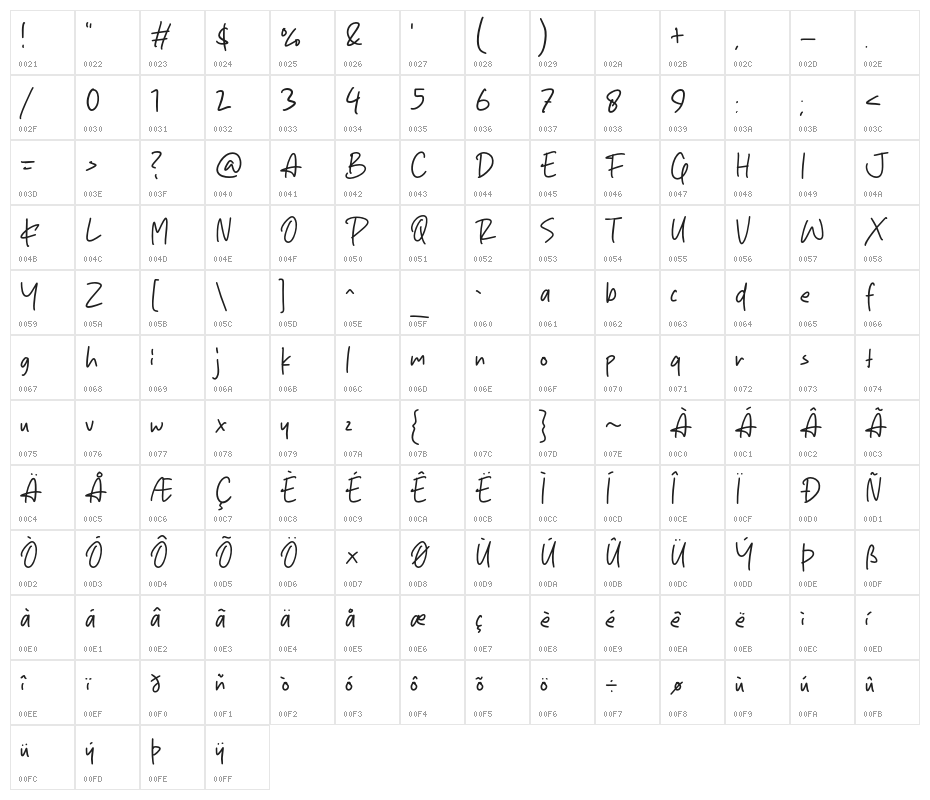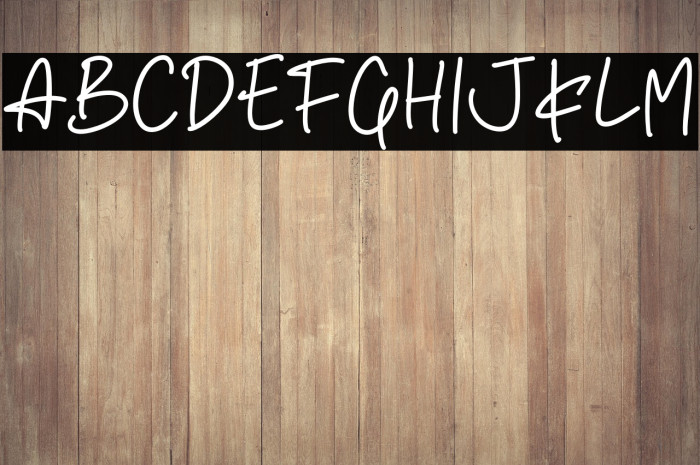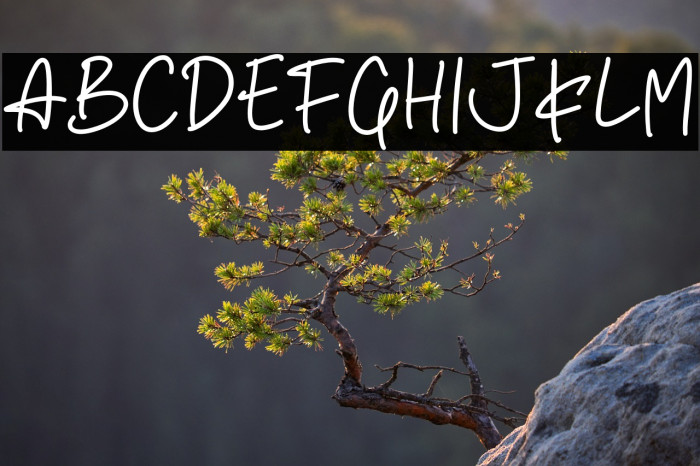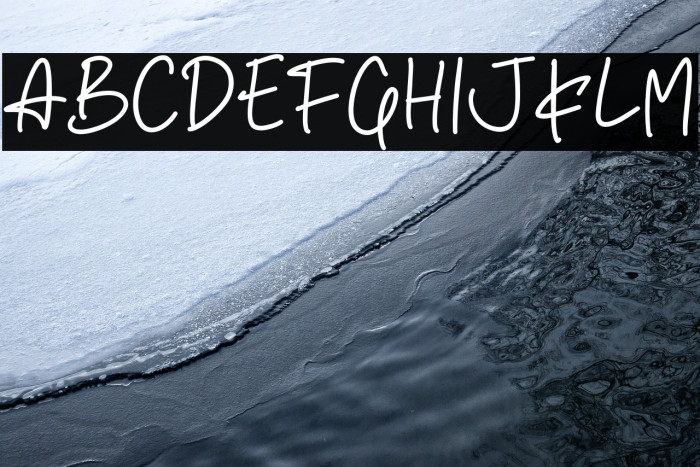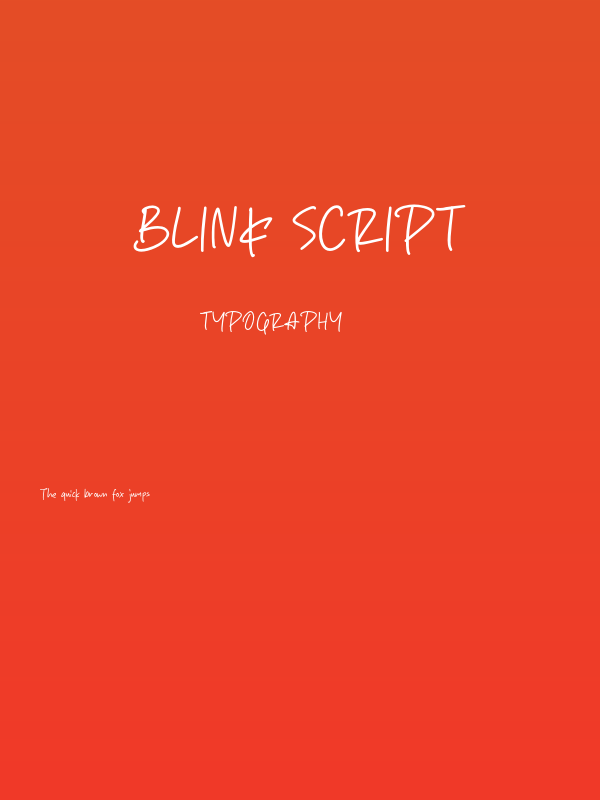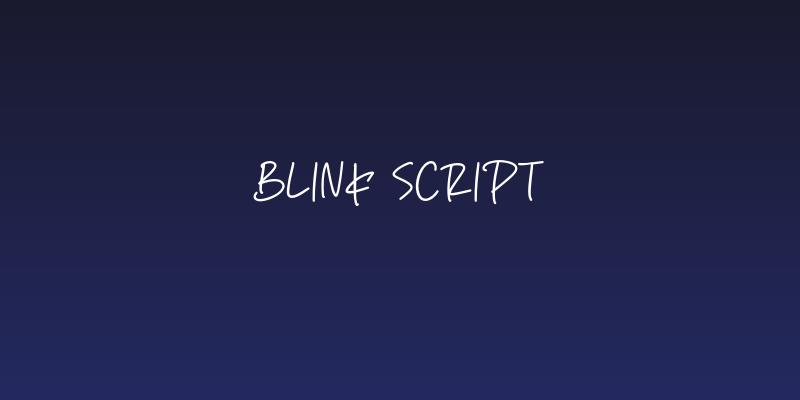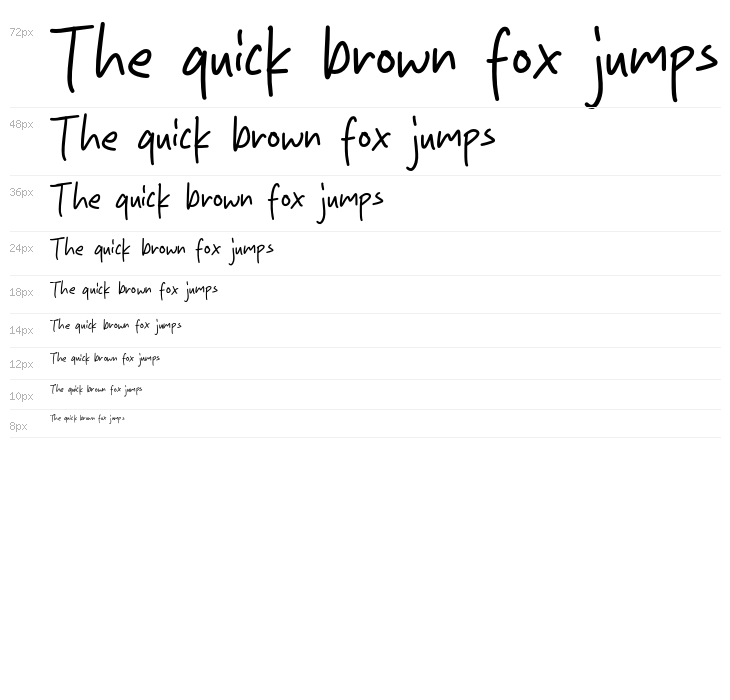
Blink Script Font
Blink Script Description
This font exhibits a casual, handwritten style with a playful and informal appearance. The characters are slightly slanted, giving it a dynamic and lively feel. The strokes are smooth and fluid, resembling natural handwriting with a touch of elegance. The uppercase letters are bold and prominent, while the lowercase letters maintain a consistent flow, enhancing readability. The numerals and special characters are crafted to match the overall aesthetic, making them versatile for various design needs.
| Use Case | Logos, Headlines, Informal Text |
| Proposed Projects | Ideal for greeting cards, personal branding, social media graphics, and informal invitations. |